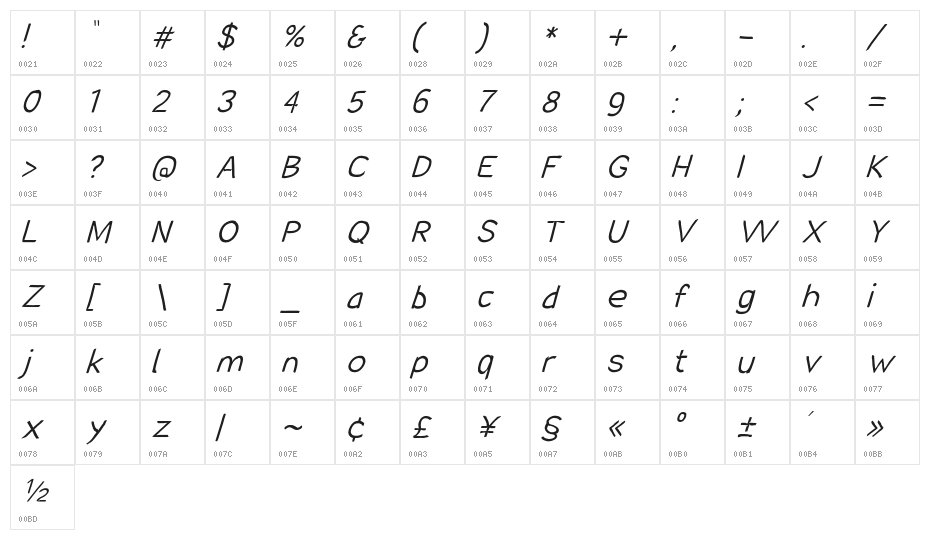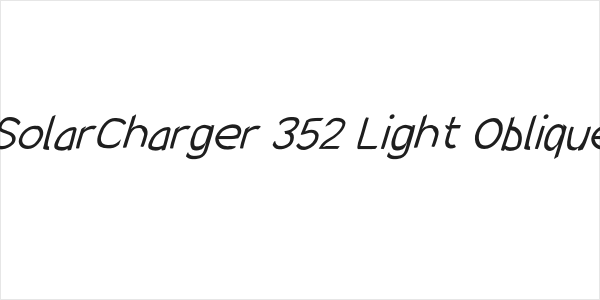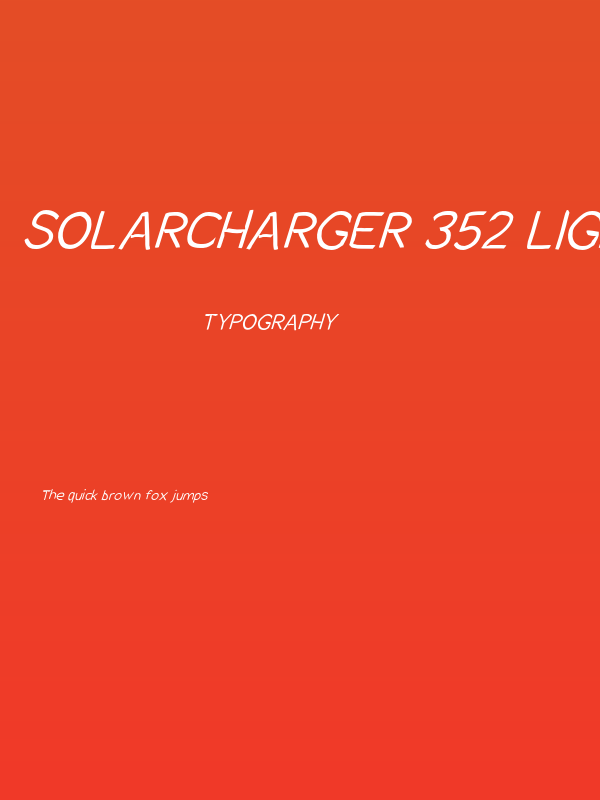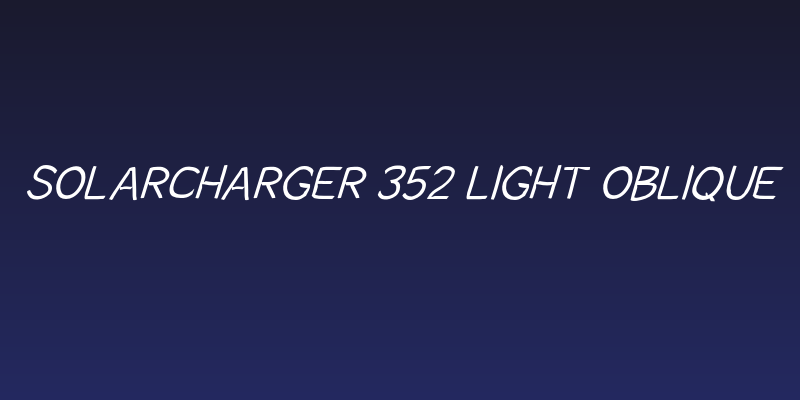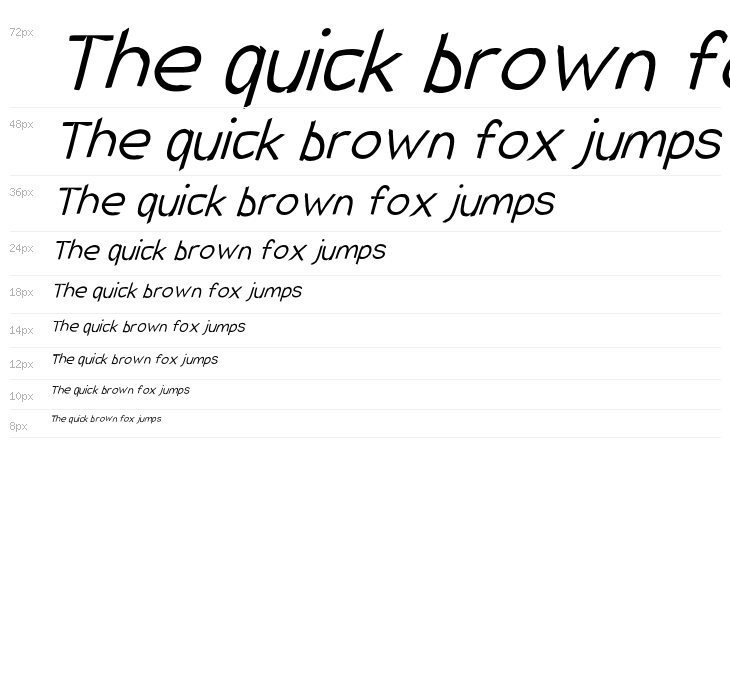
SolarCharger 352 Light Oblique Font
SolarCharger 352 Light Oblique Description
This font features a sleek, oblique style with a light weight, giving it a modern and dynamic appearance. The characters are slightly slanted, adding a sense of motion and elegance. The uppercase and lowercase letters are well-proportioned, maintaining readability while offering a stylish flair. The numerals are clear and consistent with the overall design, making them suitable for various applications. Special characters are distinct and harmonize with the alphabetic characters, ensuring versatility in usage. The font's design is clean and uncluttered, making it ideal for projects that require a contemporary and sophisticated look.
| Proposed Projects | Ideal for branding, advertising, and editorial design projects that require a modern and dynamic touch. |